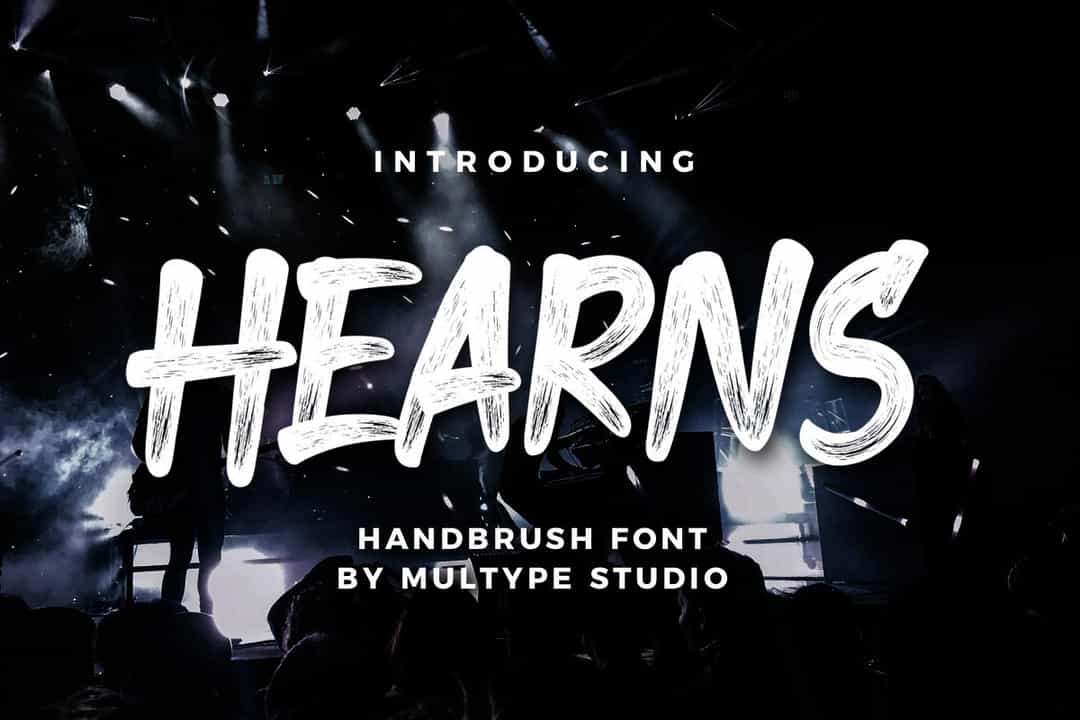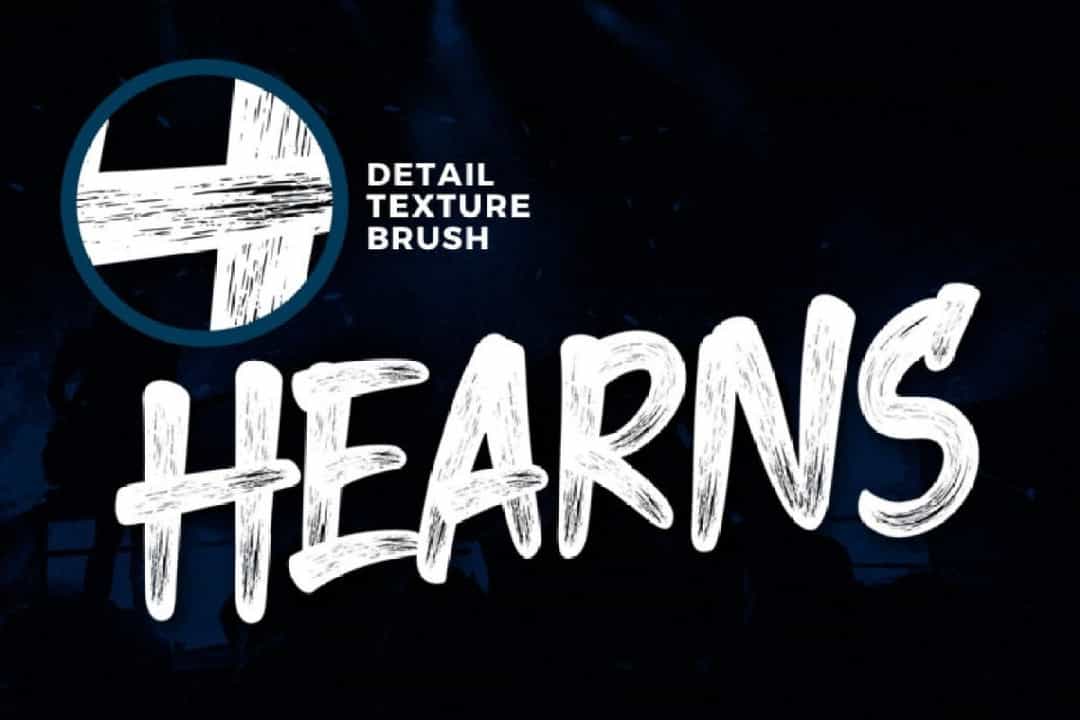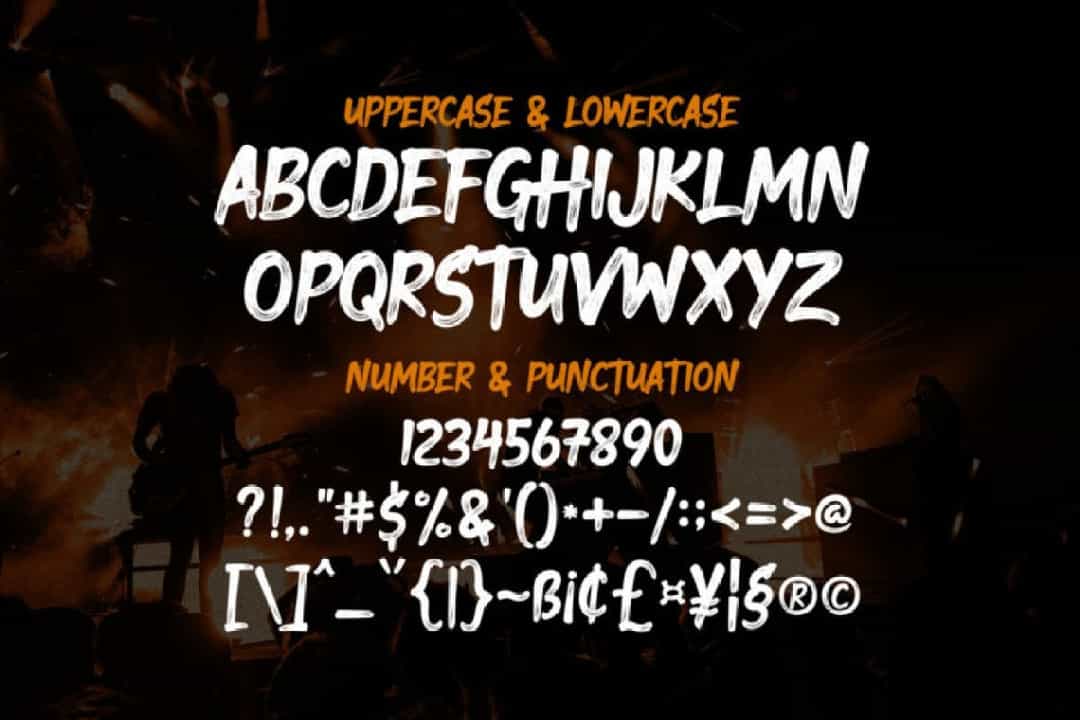
Discover Hearns Font, part of the Brush collection—a versatile and unique font perfect for adding a personal touch to your projects. Download it for free and enjoy crafting designs with style, from invitations to social media posts. This font is available exclusively for personal use, giving you the freedom to create without limits. Unlock your creativity with Hearns Font today!
Hearns font is an original hand-painted font featuring authentic textures. Ideal for branding and logo designs, packaging product designs, photography as well as advertisements social media posts invitations labels logos for stationery logos books magazines wedding cards greeting cards fashion-inspired makeup and many other applications; Hearns provides beautiful character and charm that’s hard to replicate with other fonts.